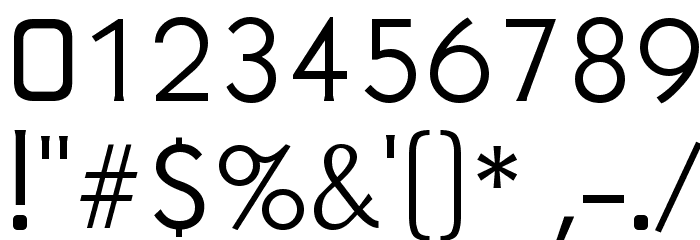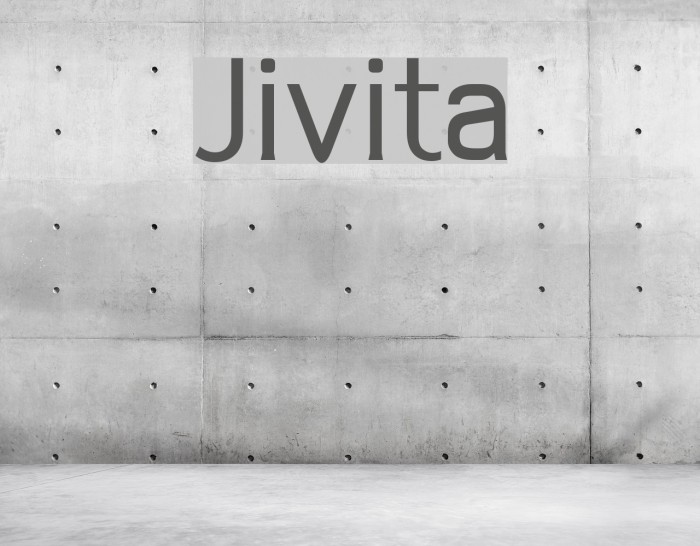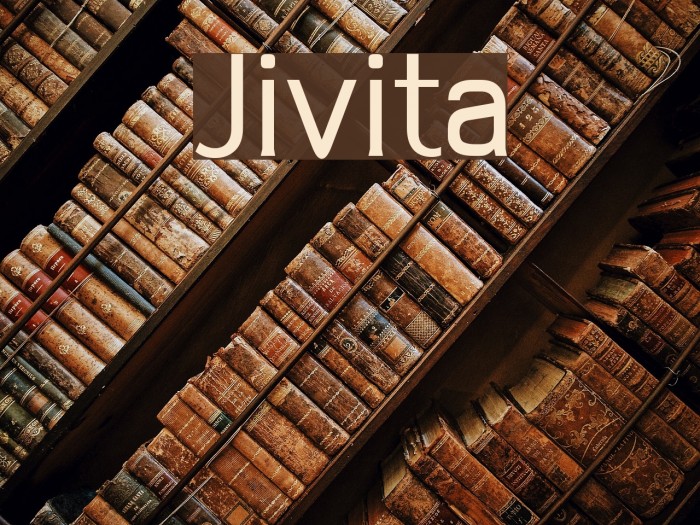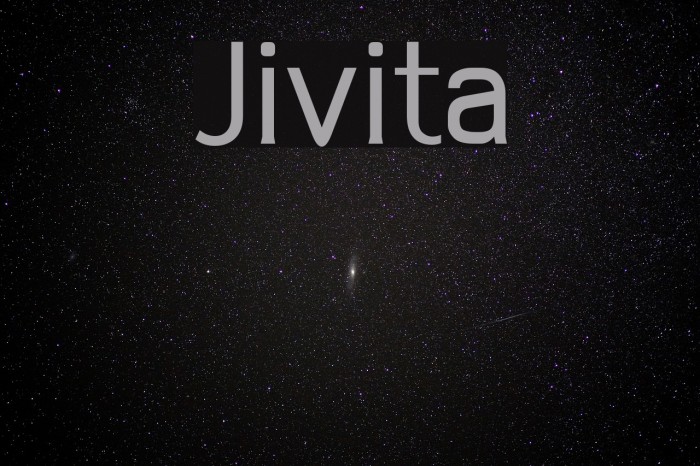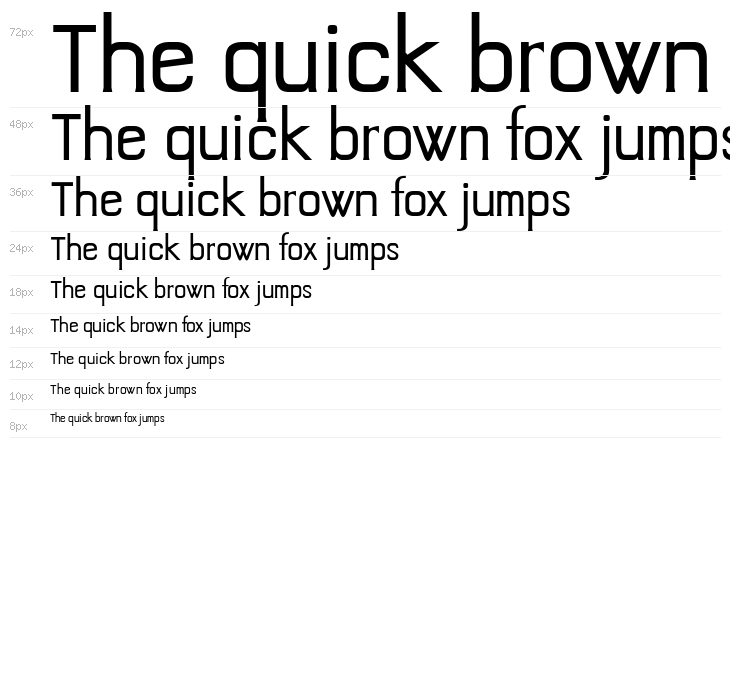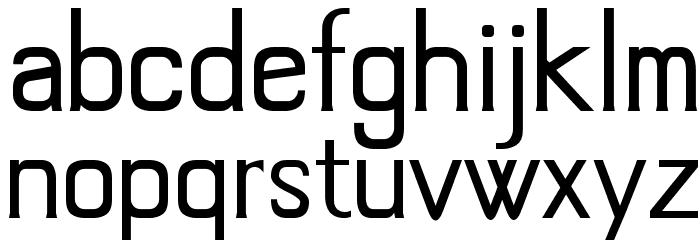
Jivita Font
Jivita Description
This font exhibits a clean and modern sans-serif style, characterized by its geometric shapes and uniform stroke widths. The uppercase letters are bold and assertive, while the lowercase letters maintain a consistent height, offering a balanced and harmonious appearance. The numerals are clear and easily distinguishable, making them suitable for both digital and print media. Special characters are well-defined, enhancing the font's versatility. The overall design is sleek and contemporary, making it ideal for a wide range of applications.
| Proposed Projects | Ideal for branding, web design, corporate materials, and digital interfaces. |